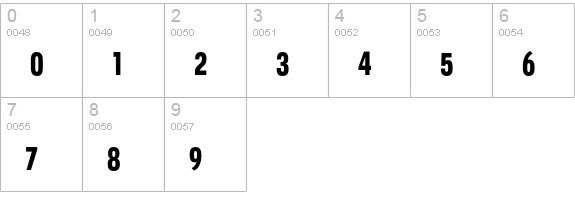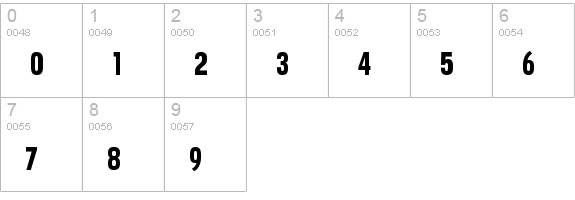
CorpusGothic-Condensed is a distinctive, condensed-width variant in the CorpusGothic typeface family \xE2\x80\x94 well suited to design and typography projects.
CorpusGothic-Condensed font is a sleek and modern typeface that exudes sophistication and elegance. Its condensed style makes it perfect for creating impactful headlines and eye-catching designs. With its clean lines and sharp edges, CorpusGothic-Condensed commands attention and adds a touch of refinement to any project. What sets CorpusGothic-Condensed font apart is that it is not only beautifully designed, but it is also available for free download at FontsMarket.com. This means that you can easily access and use this stunning font for your personal or commercial projects without any cost. Don't miss out on the opportunity to elevate your designs with the stylish and versatile CorpusGothic-Condensed font today!